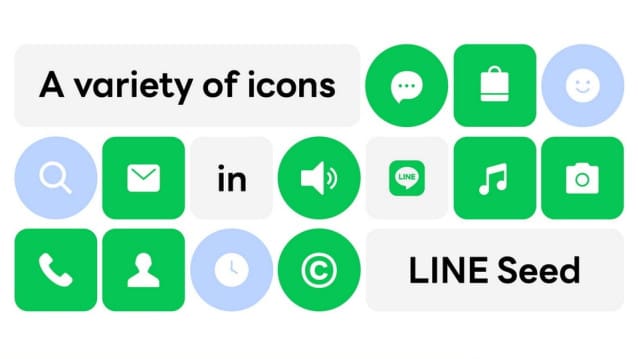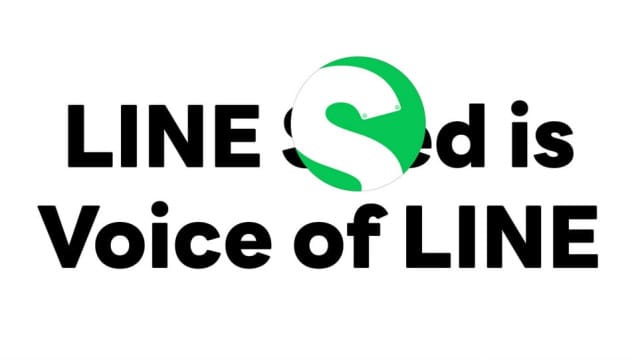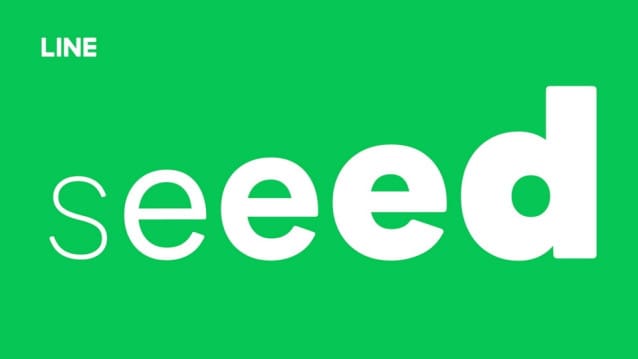
Line Seed Font
LINE Seed is LINE’s new typeface that was created based on the brand’s convenient usability and friendly identity. The word “Seed” represents the idea of growing together with our users, expressing the hope that the seeds planted firmly in LINE’s services will sprout and bear fruit. All the fonts of LINE Seed have the same DNA, and the balanced volume and weight ensures a harmony without requiring extra adjustments so that the text’s texture looks the same even when different languages are put side by side.
LINE Seed is a geometric typeface with some Gothic influences and an emphasis on simplicity. It’s designed to look familiar to everyone in a variety of places. The LINE logo’s straight form has been maintained while also emphasizing clear curves, resulting in a functional typeface with great readability, usability, and legibility.
LINE Seed has been created in various languages to deliver a consistent message to our global users. The typeface was designed based on typographical elements as well as morphological elements in order to be read in a unified and natural way while maintaining the unique form and function of the characters in each writing system.